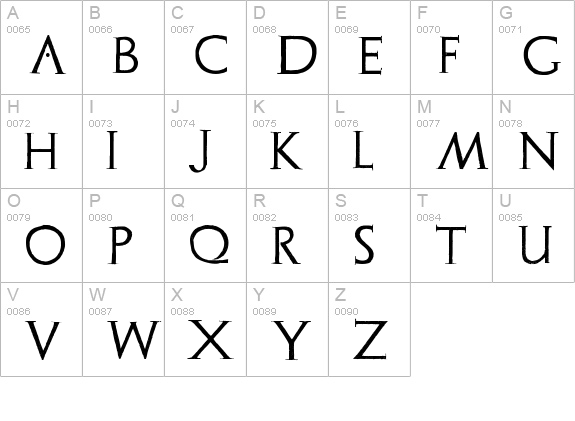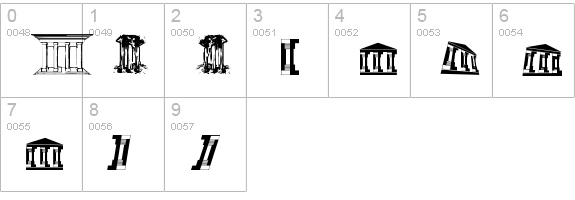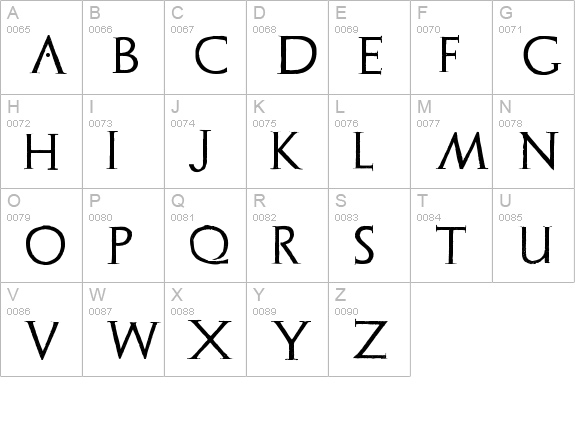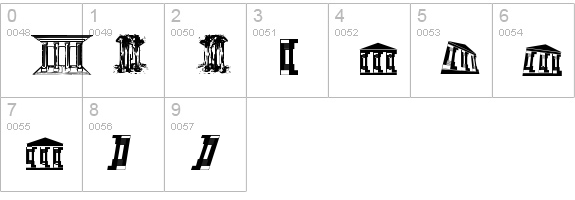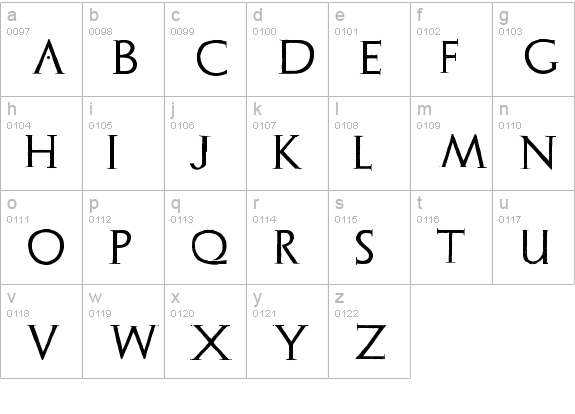
Archeologicaps Font Details
Archeologicaps font is a captivating and versatile typeface inspired by ancient archaeological inscriptions. Its intricate and detailed letterforms evoke a sense of mystery and history, making it perfect for projects that require a touch of antiquity and authenticity. The font's unique design combines elements of ancient writing systems with a modern twist, resulting in a truly one-of-a-kind look. What makes Archeologicaps font even more appealing is that it is available for free download at FontsMarket.com. This means that you can easily access and use this stunning font in your design projects without any cost. Whether you're working on branding, editorial design, or any other creative endeavor, Archeologicaps font will add a distinctive and memorable touch to your work. Don't miss out on the opportunity to enhance your designs with this remarkable typeface - download Archeologicaps font today for free!